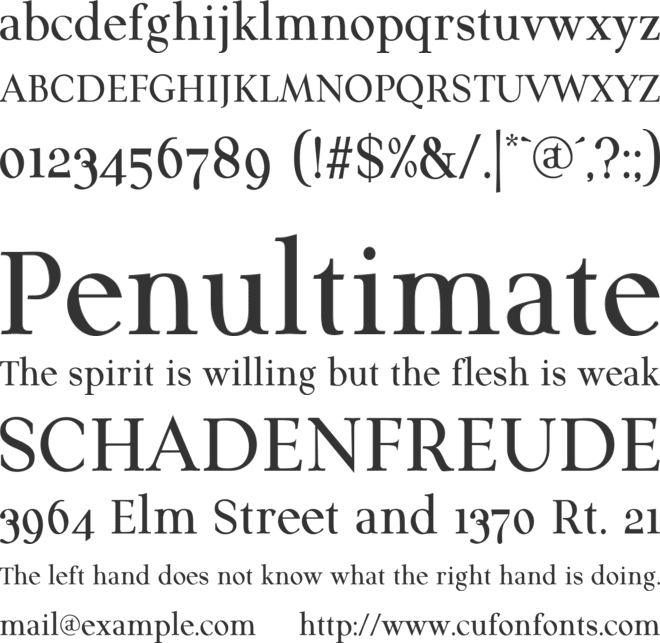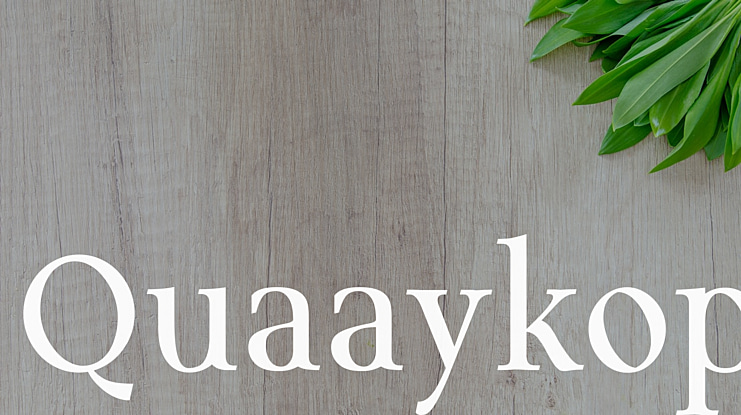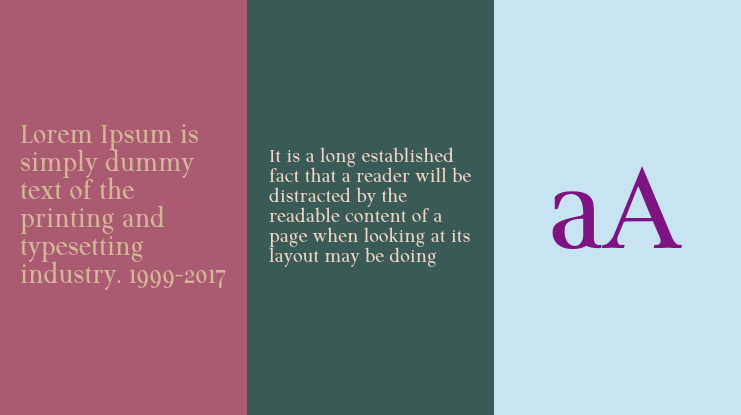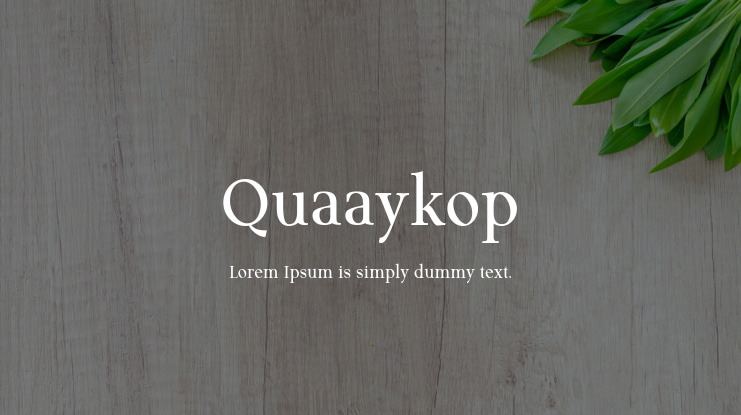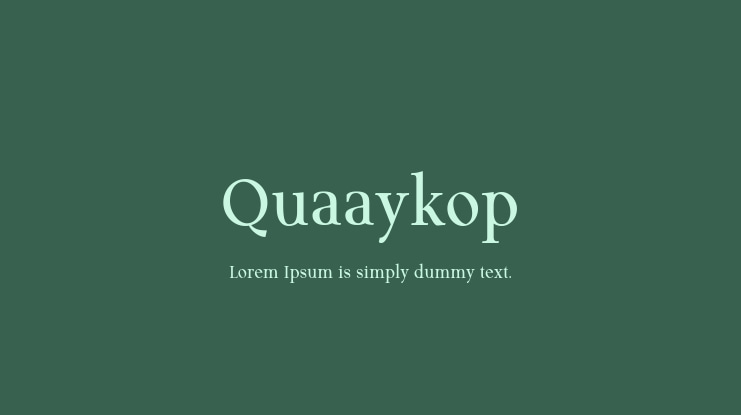
In order to create my other fonts, I typically rely on a couple of homemade basic fonts. However, there was always one missing piece in my collection - a simple and unremarkable serif font. Despite finding it quite tedious, I finally decided to create this font from memory, attempting to recall the lessons I learned about typography during my time in art school four decades ago. While my aim was to maintain its dullness, I must admit that there were some moments where I wandered into the realm of eccentricity, which you will notice upon viewing it :)
Presenting Quaaykop: available in Regular, Medium, Bold, and Italic styles. This is my third font I have created this month. Although it may not be flawless, it should serve its purpose. Hence, I have decided to share it.